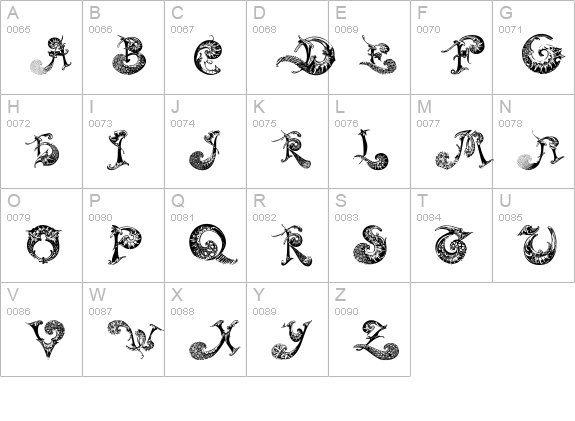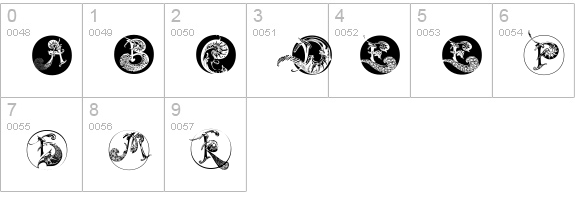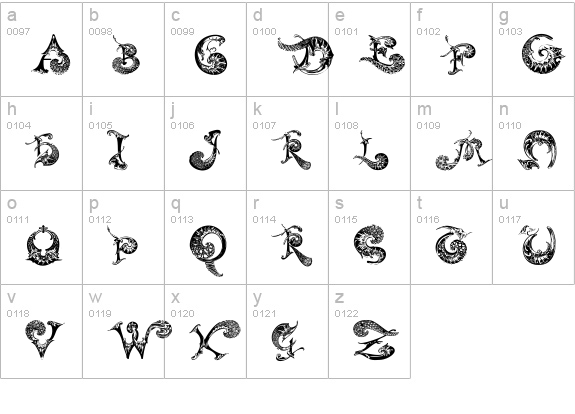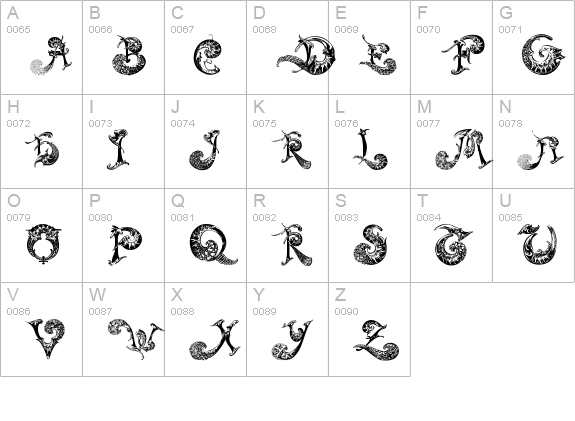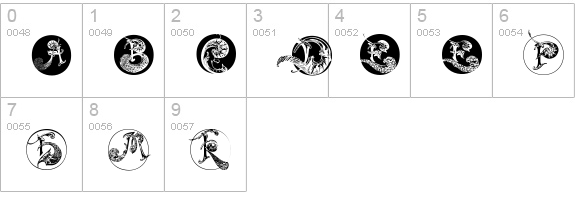
SchnoerkelCaps Font Details
SchnoerkelCaps font is an exquisite display typeface that combines elegance with a touch of whimsy. With its intricate and ornate design, it adds a unique charm to any project, making it perfect for invitations, logos, posters, and more. Each letter in SchnoerkelCaps font is carefully crafted with intricate details and delicate curves, giving it a distinct and sophisticated appearance. The uppercase characters feature beautiful flourishes and swashes that add a touch of grace and luxury to your designs. This font is not only visually stunning but also versatile. Whether you're looking to create a vintage-inspired design or add a touch of elegance to a modern project, SchnoerkelCaps font has you covered. Its timeless appeal makes it suitable for a wide range of applications, both print and digital. What makes SchnoerkelCaps font even more remarkable is that it is available free of charge. You can easily download this font at FontsMarket.com, a reputable source for high-quality fonts. With just a few clicks, you can enhance your designs with this stunning typeface, without any cost involved. So why wait? Take your designs to the next level with SchnoerkelCaps font. Download it today from FontsMarket.com and unlock a world of possibilities for your creative endeavors.